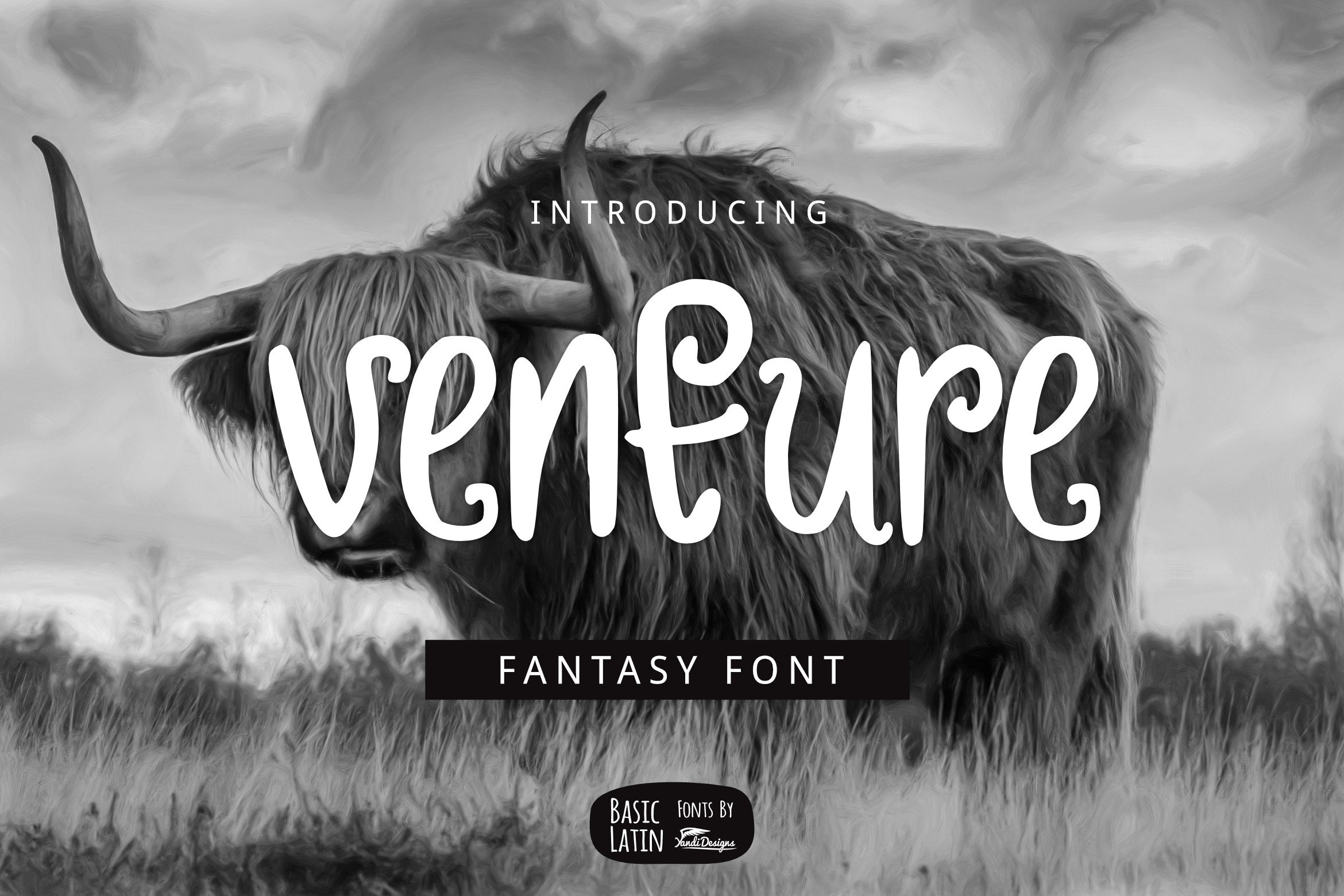
Venture Font
Venture is simple, playful, multipurpose handwritten font , suitable for many project children book, quotes, logo , heading , title etc.